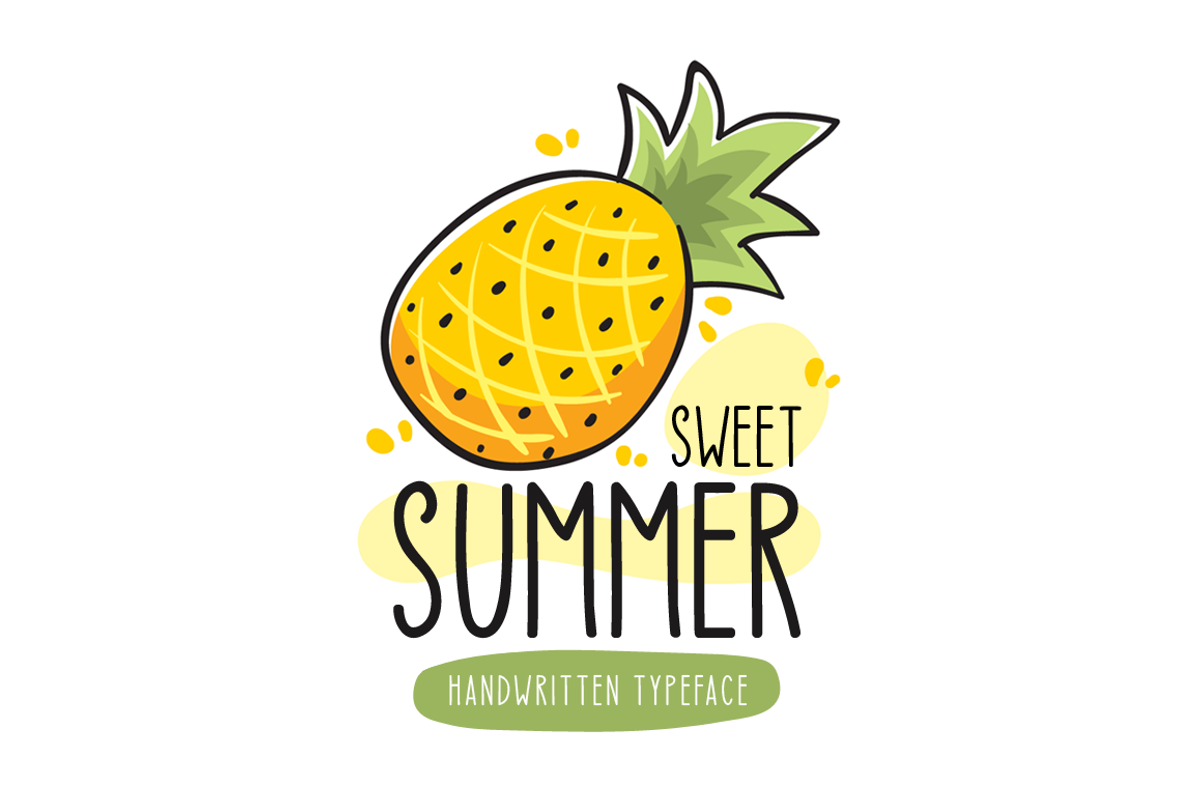
Sweet Summer Typeface Free Download is a bright and cheerful handwritten font that captures the carefree essence of sunny days and fun vibes. With its bouncy curves, playful flow, and lighthearted character, this typeface is perfect for summer-themed graphics, greeting cards, social media posts, packaging, DIY projects, and children’s designs.
Designed to bring joy and warmth to your creations, Sweet Summer adds a touch of personality and handcrafted charm. Whether you're designing for a beach party or a seasonal sale, this font brings that extra splash of sunshine.